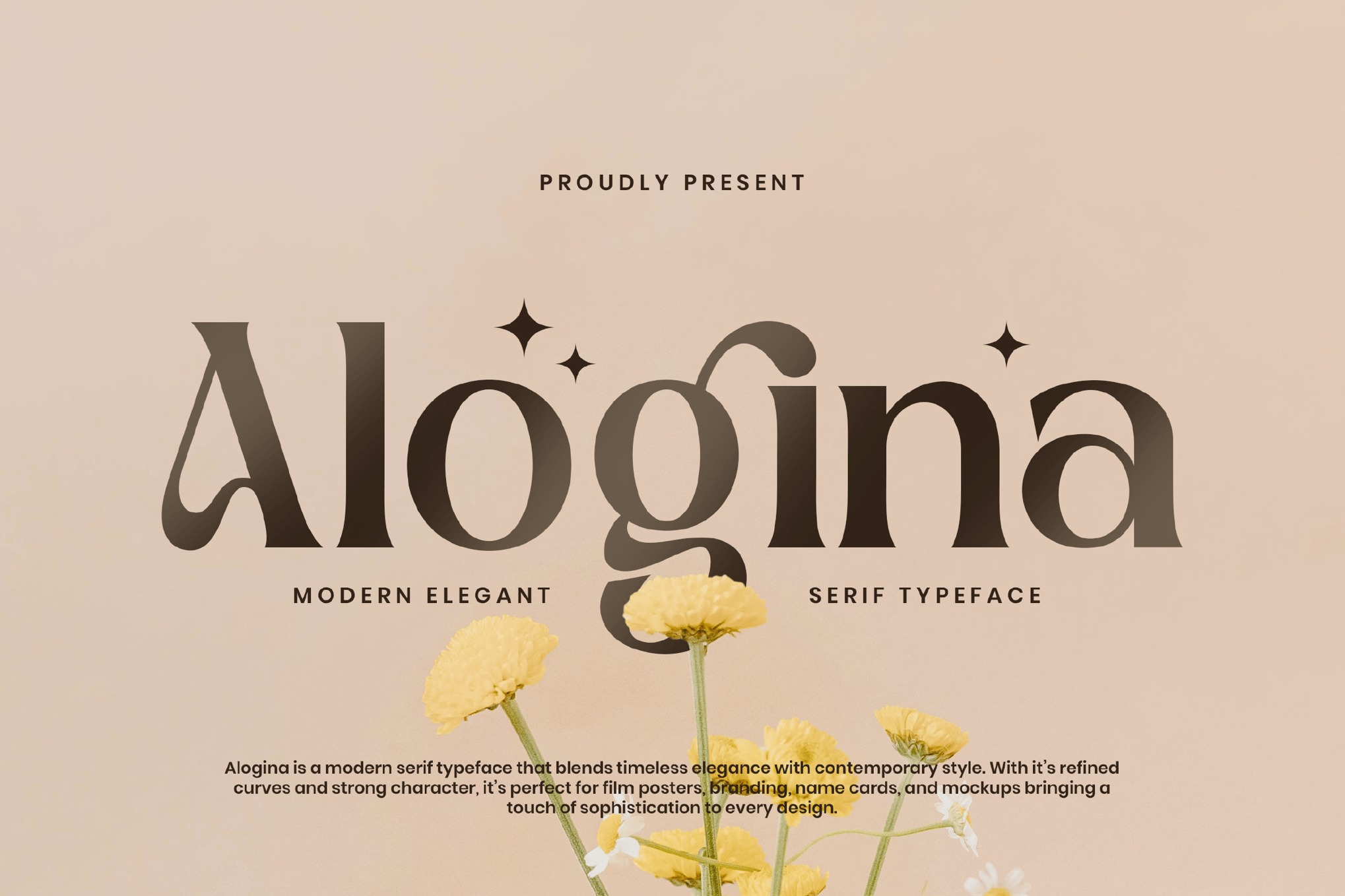
Alogina Font
Alogina Font brings a balanced structure and contemporary look, making it suitable for both digital and print design. Alogina is a modern and elegant serif typeface designed to bring timeless sophistication and contemporary style to a single, seamless font. Crafted with refined details, balanced proportions, and graceful contrast, Alogina offers a luxurious visual presence that instantly elevates any creative project.
This typeface is perfect for designers seeking a premium serif with a modern feel. It’s ideal for branding, editorial design, fashion visuals, luxury packaging, logos, wedding motifs, and high-end marketing materials. Alogina combines the classic elegance of serifs with a clean, modern touch, making it versatile for both digital and print applications.
Each Alogina typeface is carefully crafted to ensure excellent readability while maintaining a distinctive and elegant personality. Whether creating a strong brand identity, designing magazine layouts, or crafting sophisticated headlines, Alogina brings a sense of confidence, elegance, and professionalism to your work.